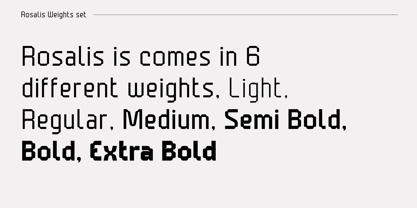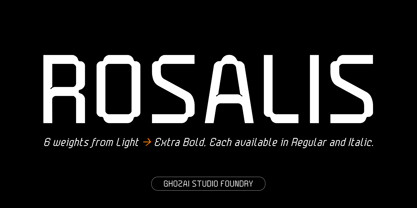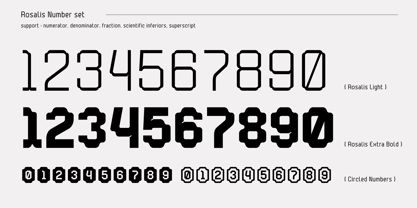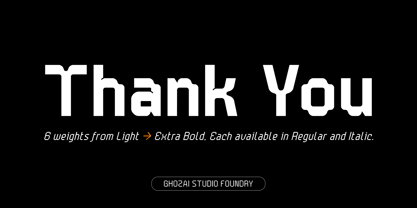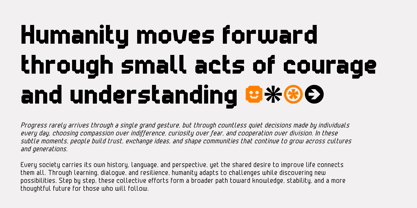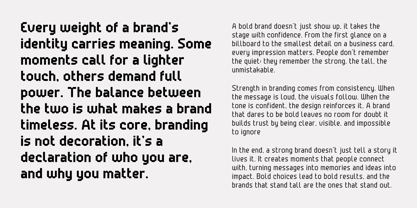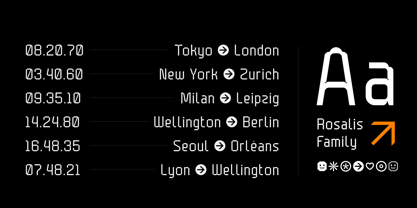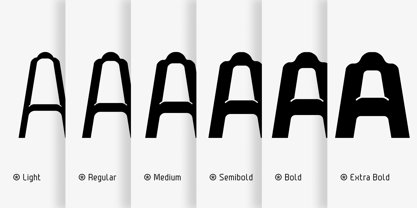
Rosalis
by Ghozai Studio
The Rosalis Font Family was designed by Manzur Ghozaali and published by Ghozai Studio. Rosalis contains 12 styles and family package options. More about this family
Rosalis is a versatile sans serif font family that includes 6 weights, inspired by pixel and technology shapes, ranging from Extra Light to Black, with each weight available in both regular and italic styles. This extensive variety of weights, along with a rich set of symbols, OpenType features, and multilingual glyph support, ensures that Rosalis meets diverse design needs across different languages. Its modern, clean, and bold aesthetic makes it suitable for a wide range of applications, including display, branding, signage, festival posters, sports, and more. Whether you are crafting impactful headlines, distinctive logos, or clear signage, Rosalis combines style with functionality. Its adaptability to various design styles makes it the perfect choice for projects that demand a bold and contemporary touch.
Designers: Manzur Ghozaali
Foundry: Ghozai Studio